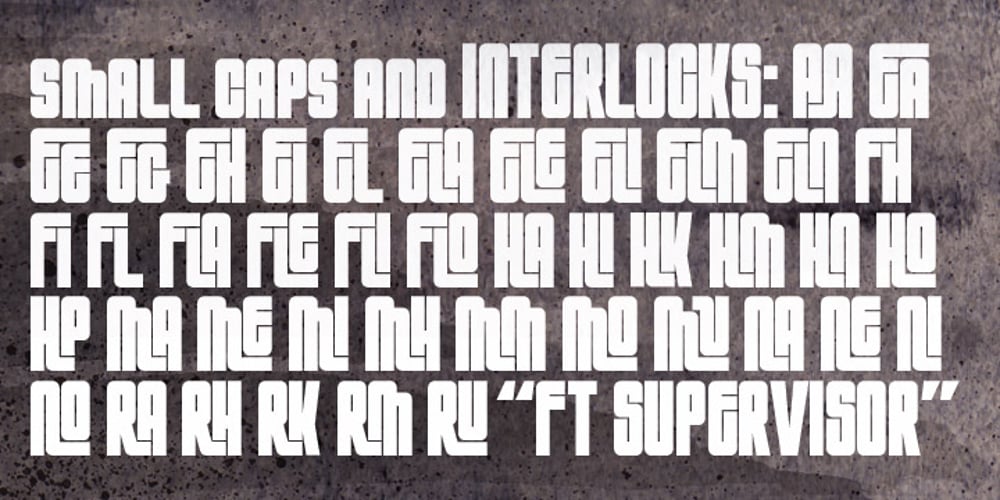
FT Supervisor
FT Supervisor font
FT Supervisor Font Family was designed by Emil Karl Bertell and published by Fenotype. FT Supervisor contains 1 styles and family package options. Supervisor is a compact and tough retro font. The font has small caps and plenty of automatic ligatures. Supervisor will rock your record covers and posters.